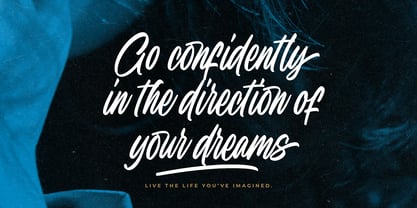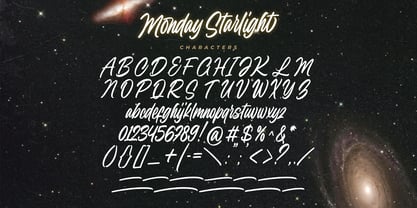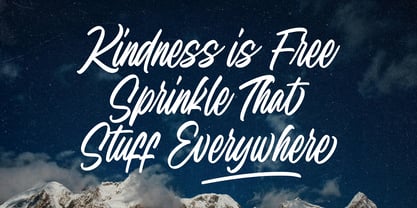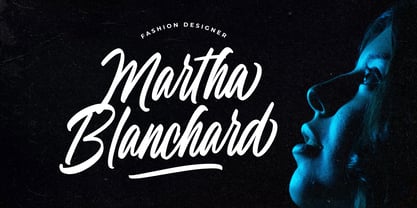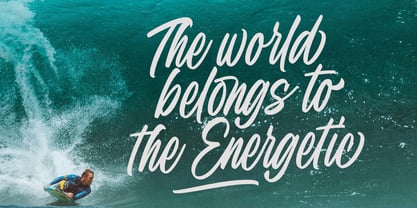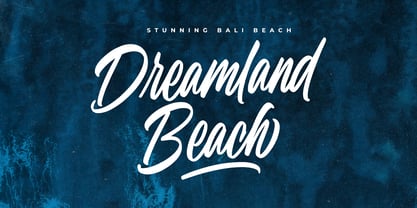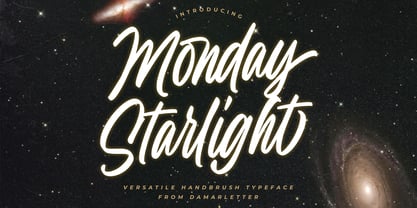
Monday Starlight
by Damarletter
The Monday Starlight Font Family was designed by Ardian Nuvianto and published by Damarletter. Monday Starlight contains 1 styles. More about this family
Monday Starlight is a versatile handbrush typeface that shines bright like a star, perfect for adding a touch of creativity and personality to your designs.